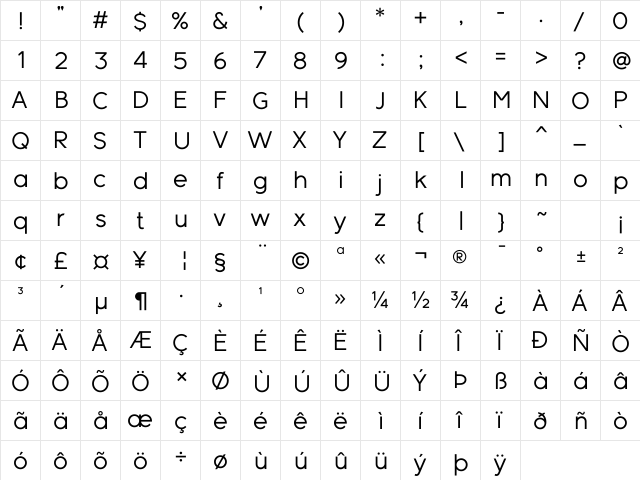
Meticula Regular
| Foundry | Kushal Jain |
| Designer | Kushal Jain |
Design Context for Meticula Typeface
Meticula takes a measured approach to typography — its balanced proportions and neutral character make it a reliable workhorse for both digital and print work.